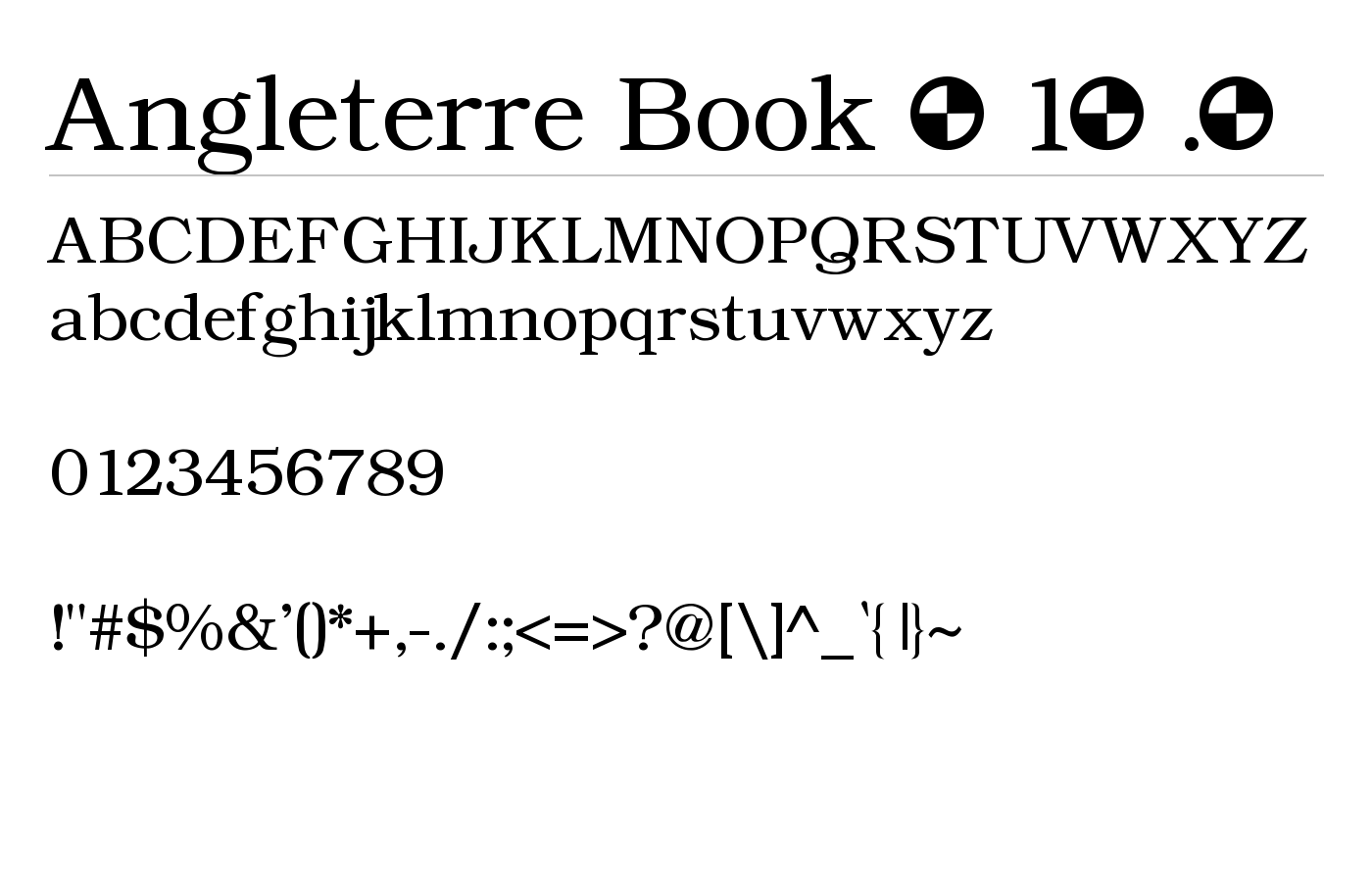
Angleterre Book is an elegant serif font with a classic, refined look characterized by its moderate contrast between thick and thin strokes and distinctive bracketed serifs. Its traditional letterforms, including double-story a and g, along with clean, balanced shapes, make it highly readable and suitable for sophisticated editorial use, branding, and formal design projects. This font conveys a timeless, professional tone, perfect for luxury brands, book typography, and any context where clarity and refinement are key.
Angleterre Book Font
About Angleterre Book Font